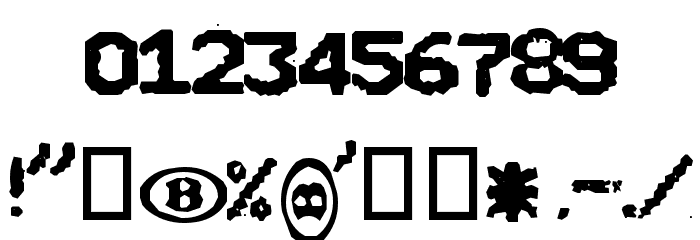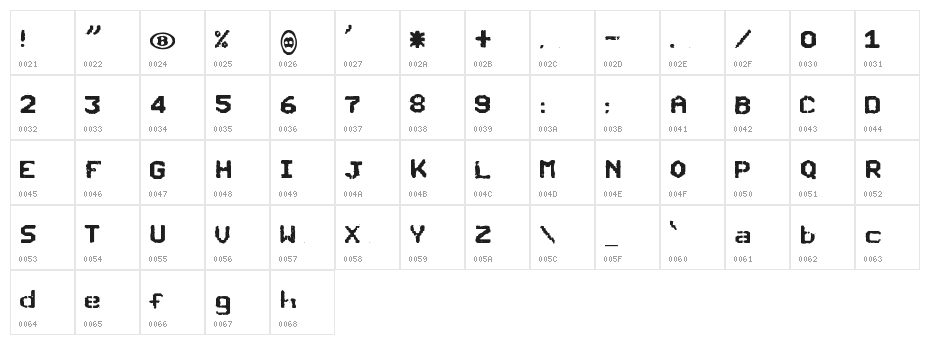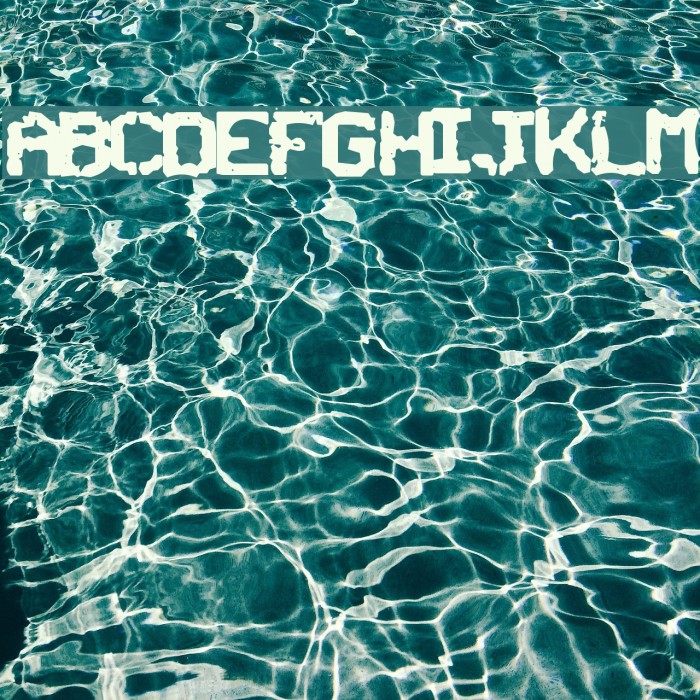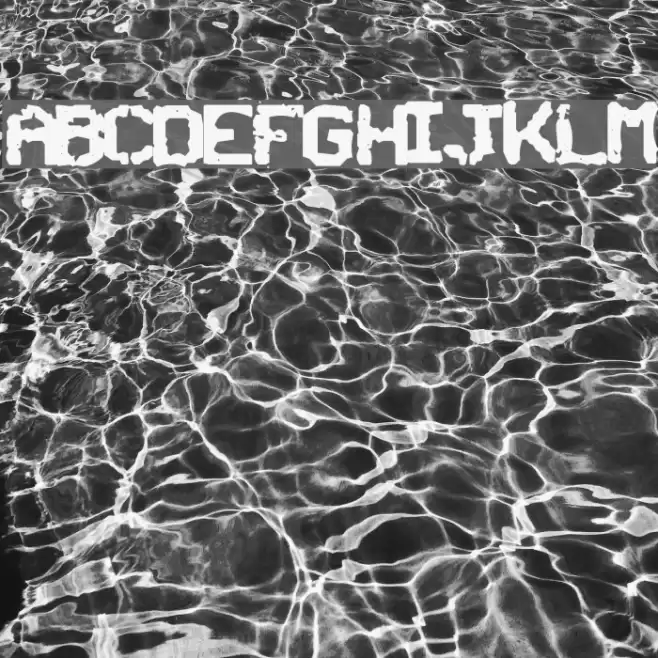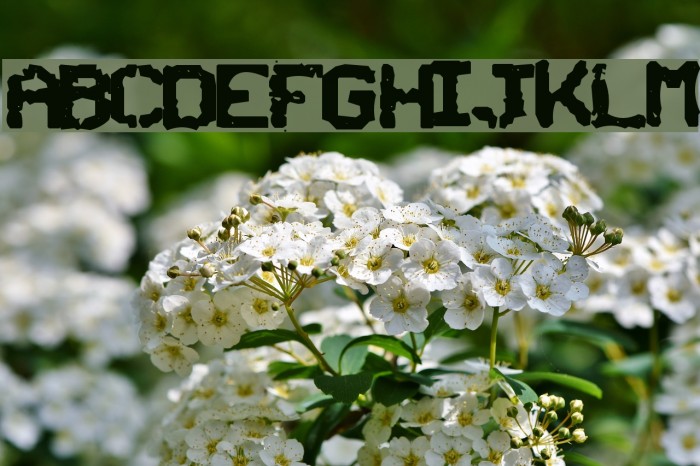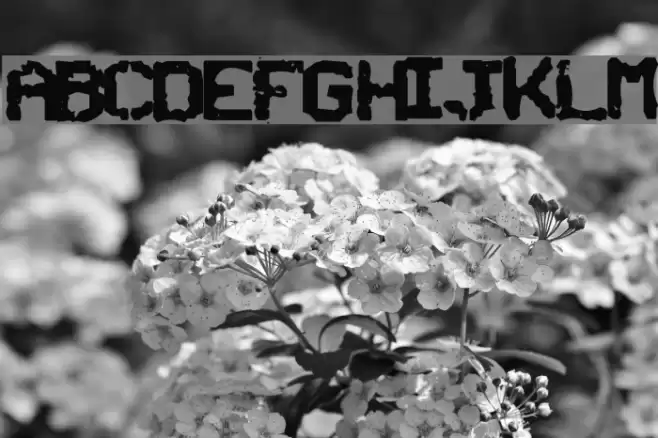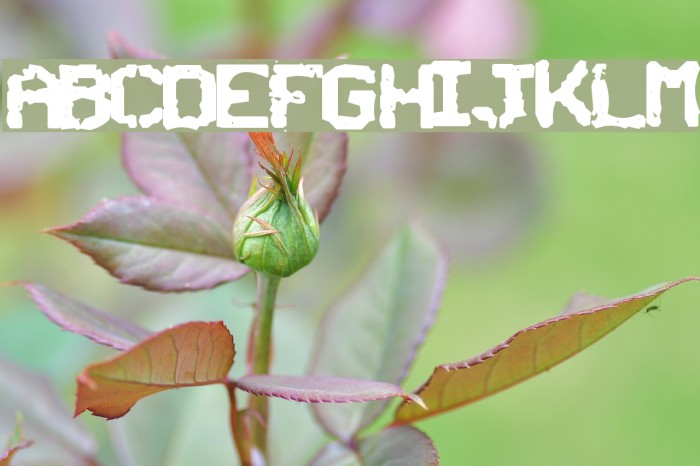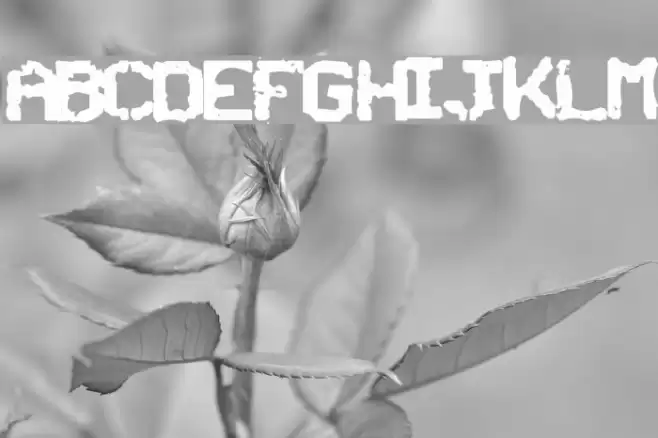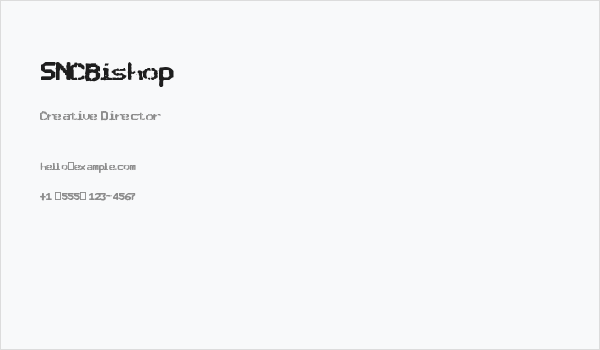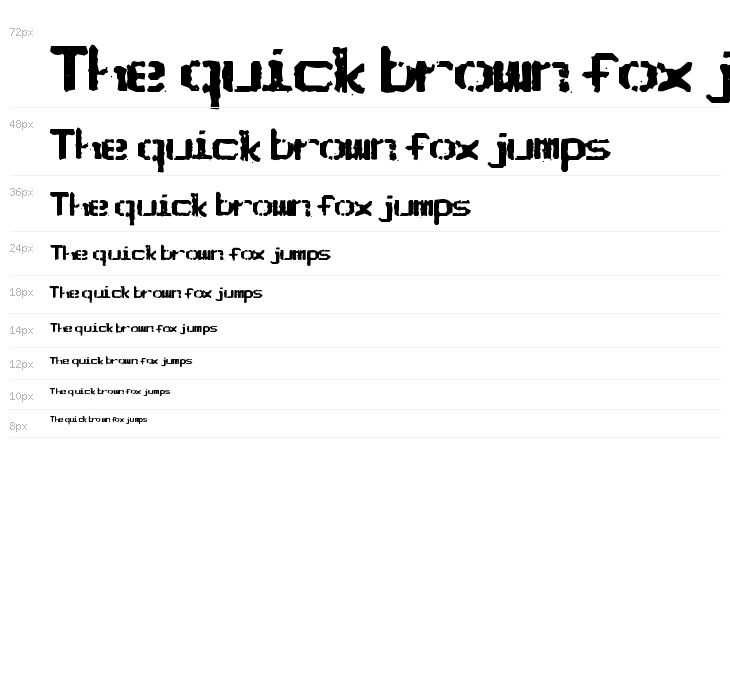
SNCBishop Font
SNCBishop Description
This font features a distressed and grungy aesthetic, with irregular edges and a textured appearance that gives it a worn, vintage feel. The characters are bold and impactful, making them stand out with a rugged charm. The uppercase and lowercase letters maintain a consistent style, with the uppercase being slightly more pronounced. Numbers and special characters follow the same distressed pattern, ensuring uniformity across all elements. This font is ideal for projects that require a bold statement or an edgy, urban vibe.
SNCBISHOP UPPERCASE
SNCBISHOP LOWERCASE
SNCBISHOP OTHER CHARS
| Overall Style | Vintage, Grunge |
| Proposed Projects | Perfect for album covers, posters, streetwear branding, and any design needing a gritty, urban edge. |